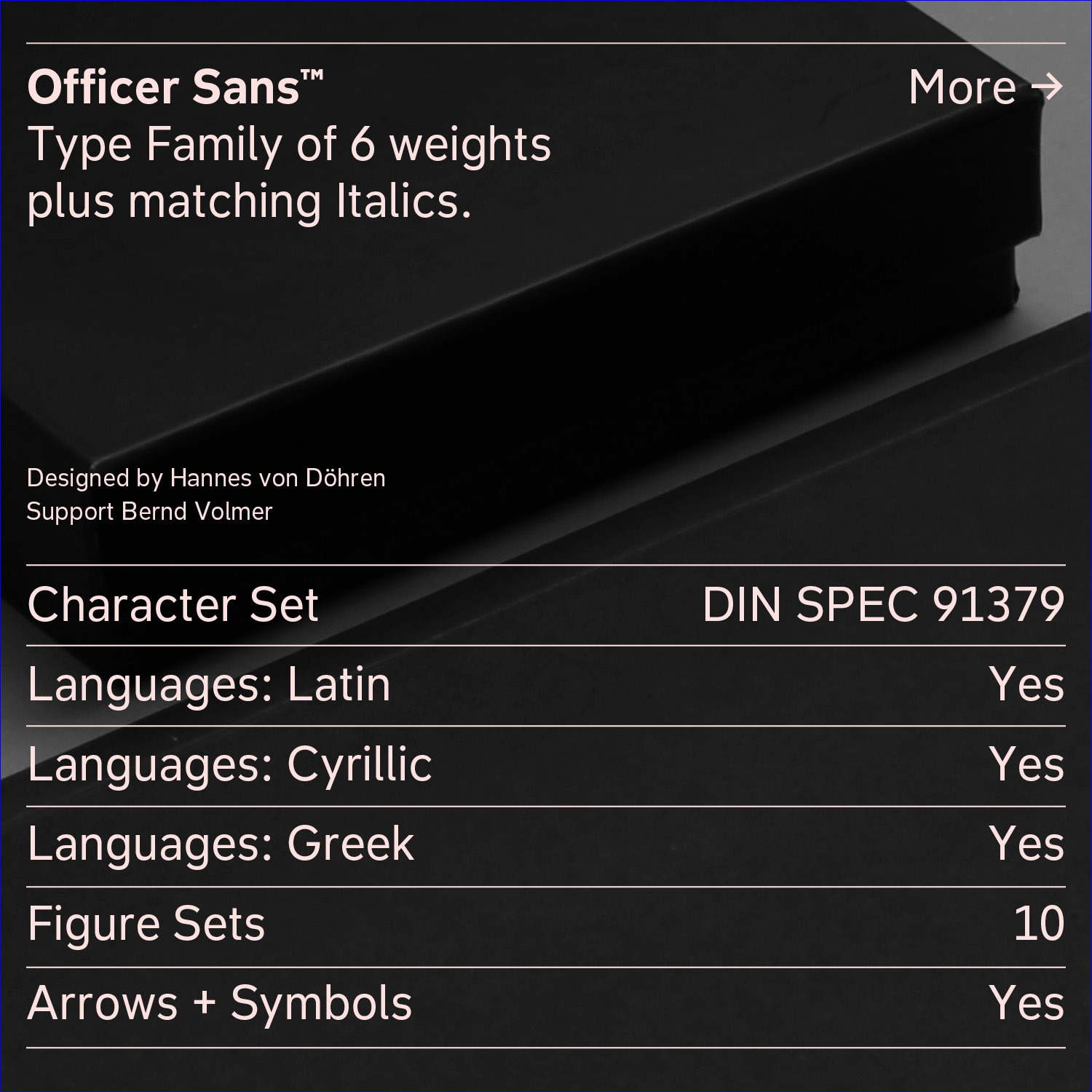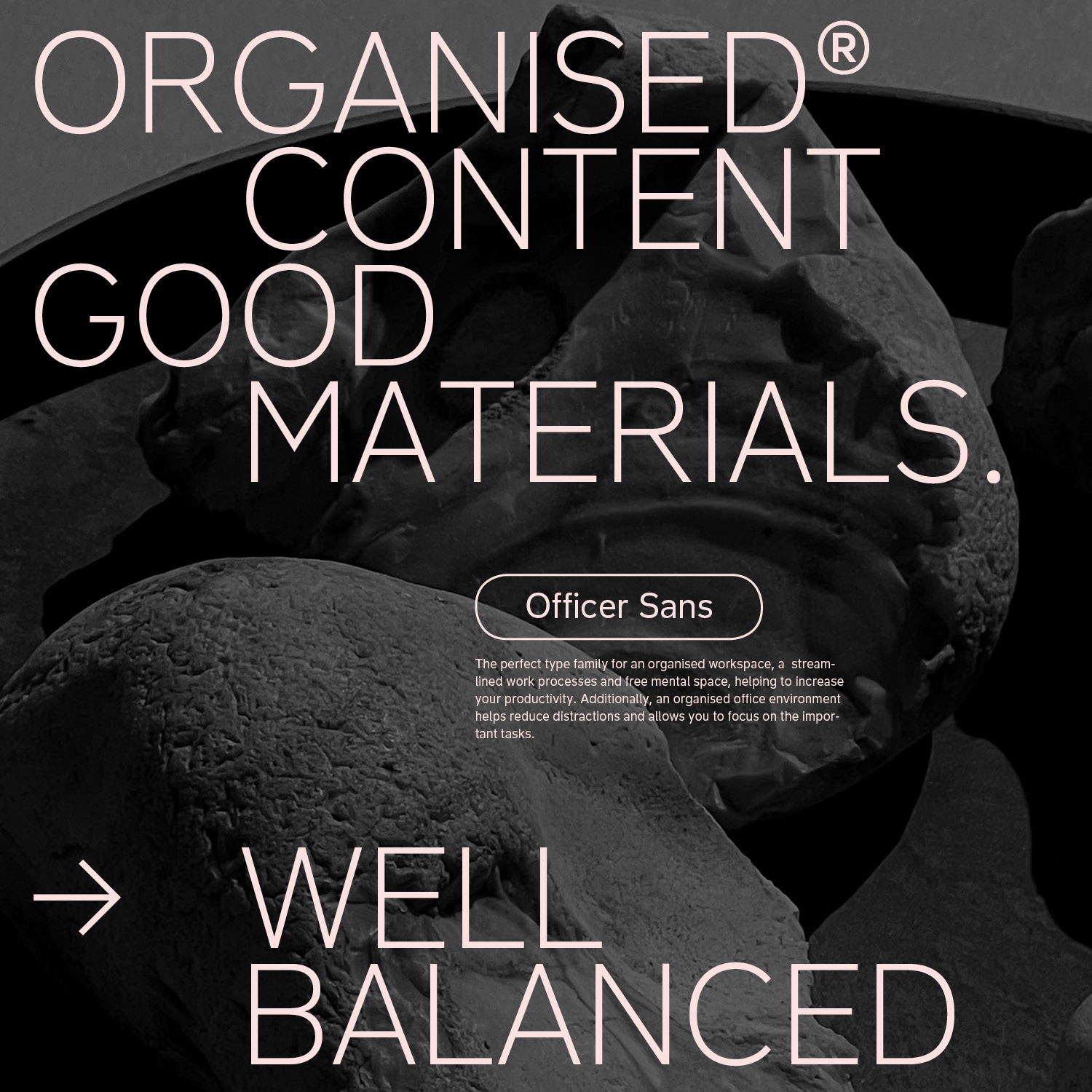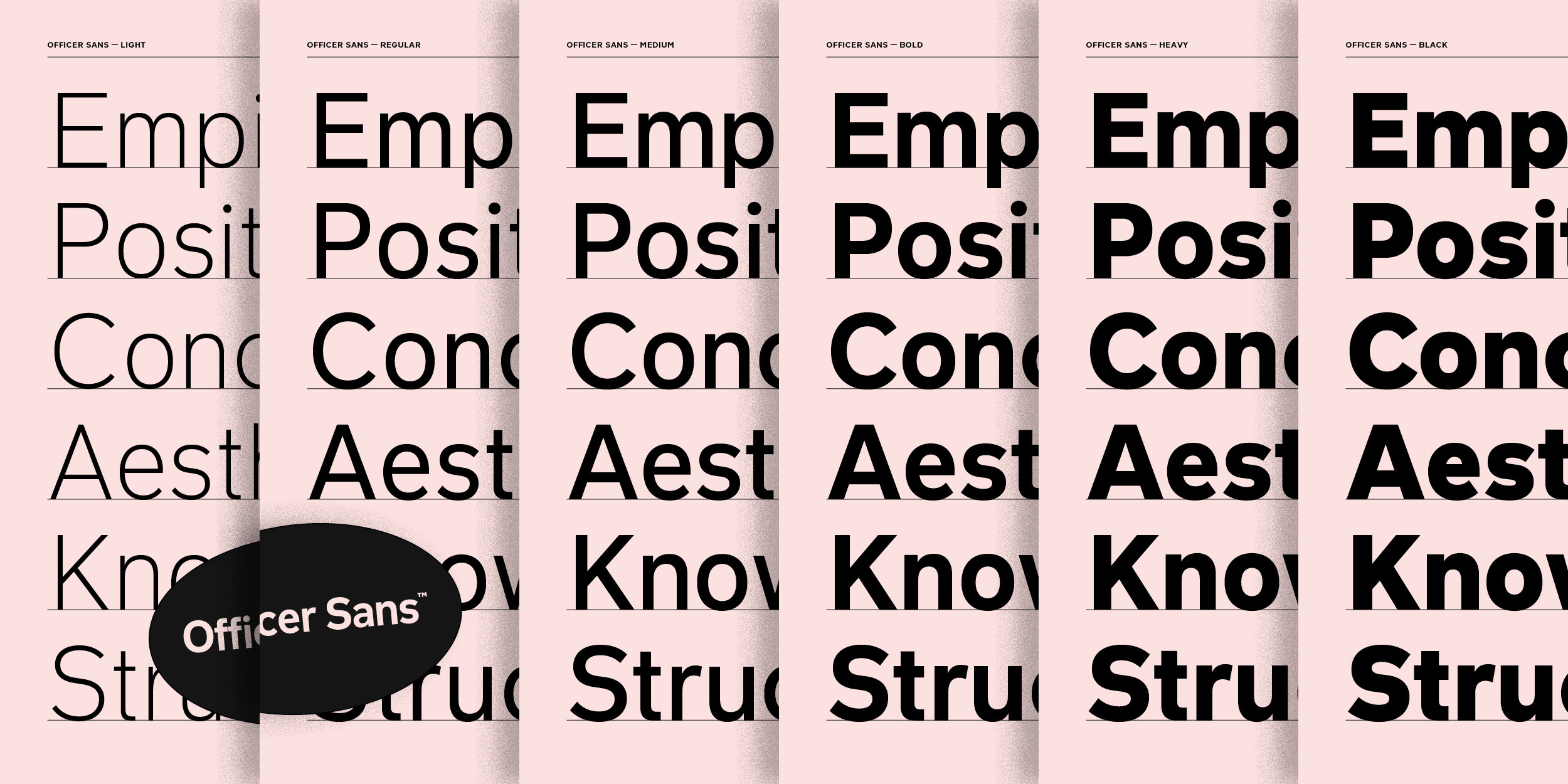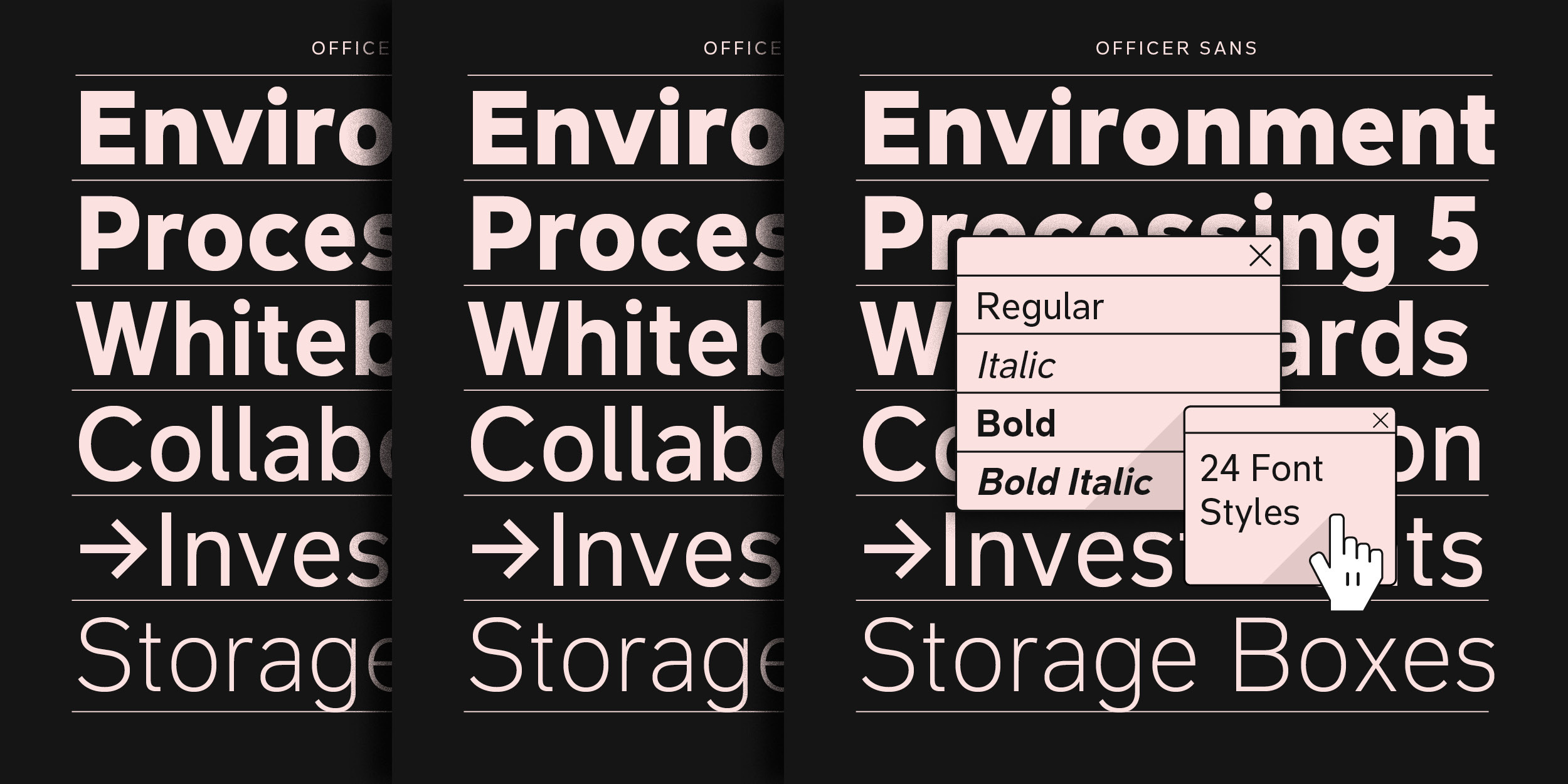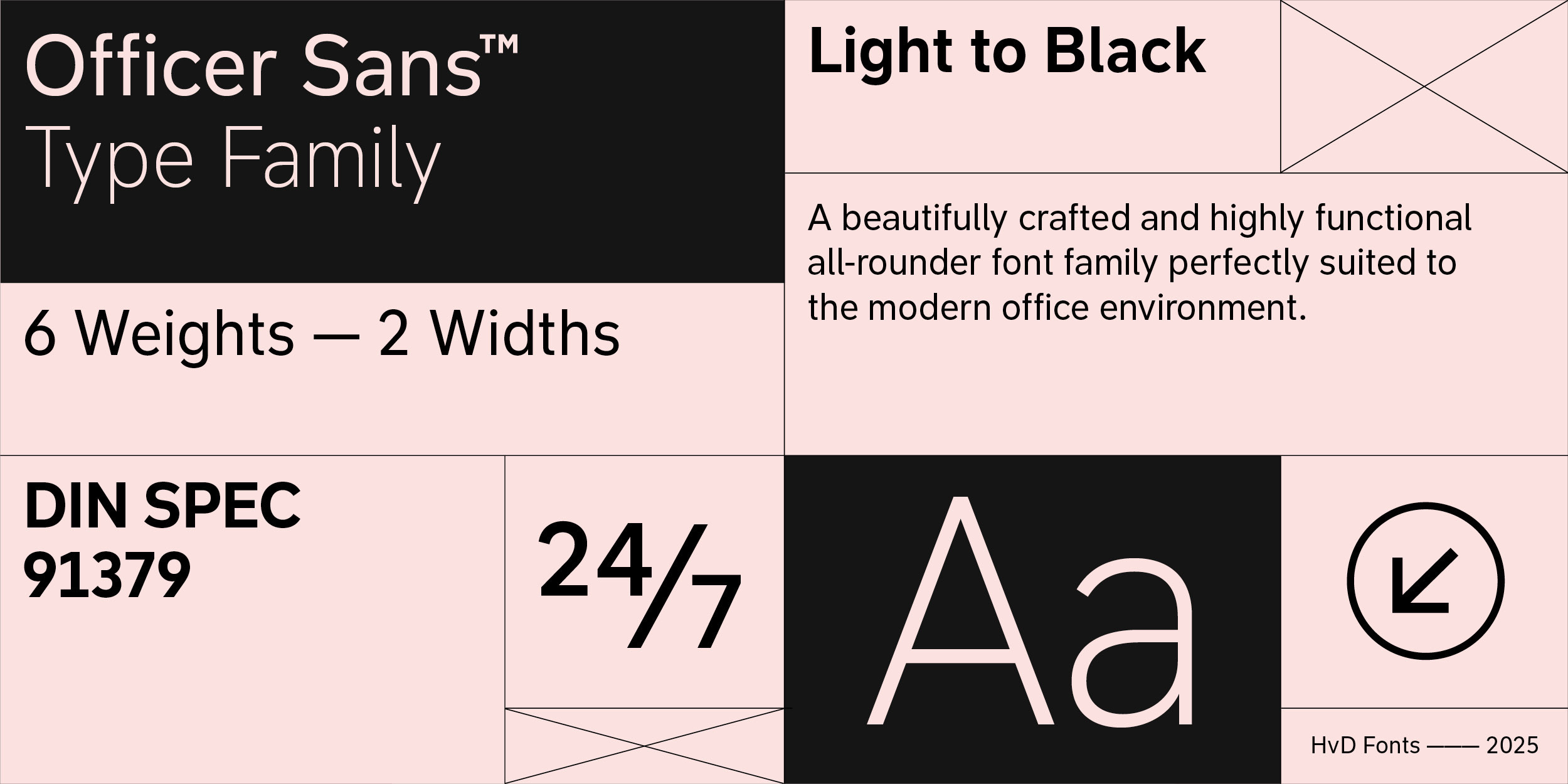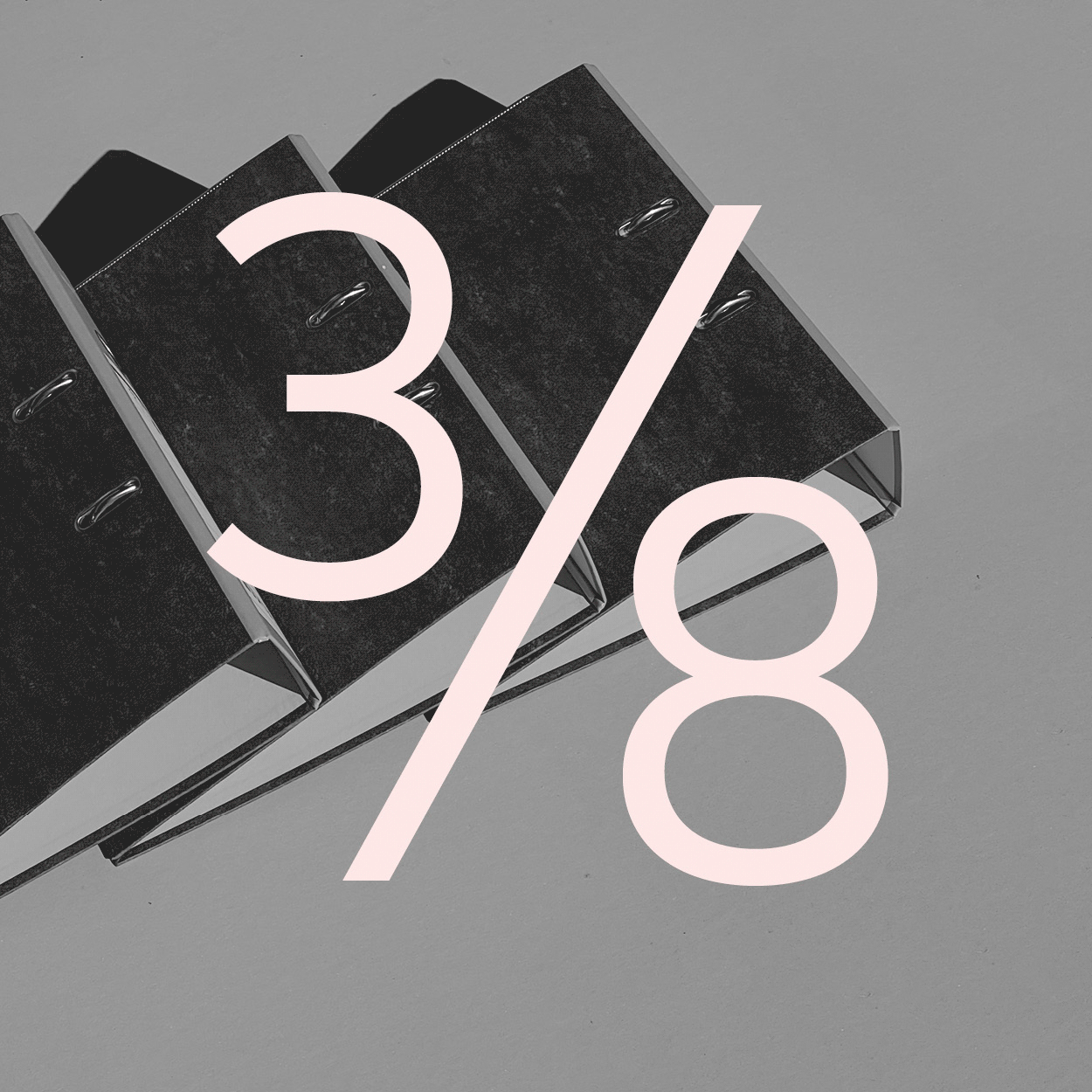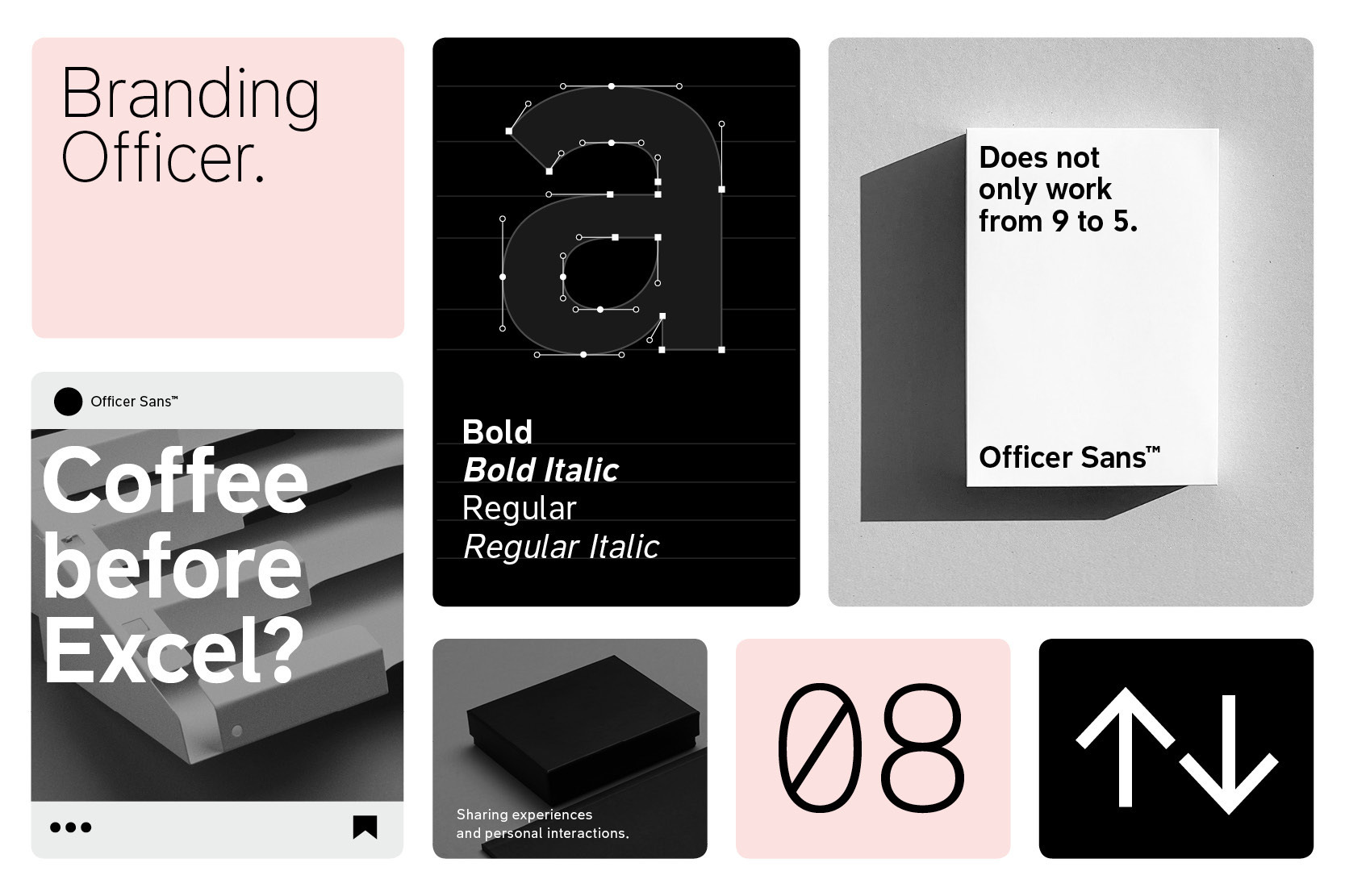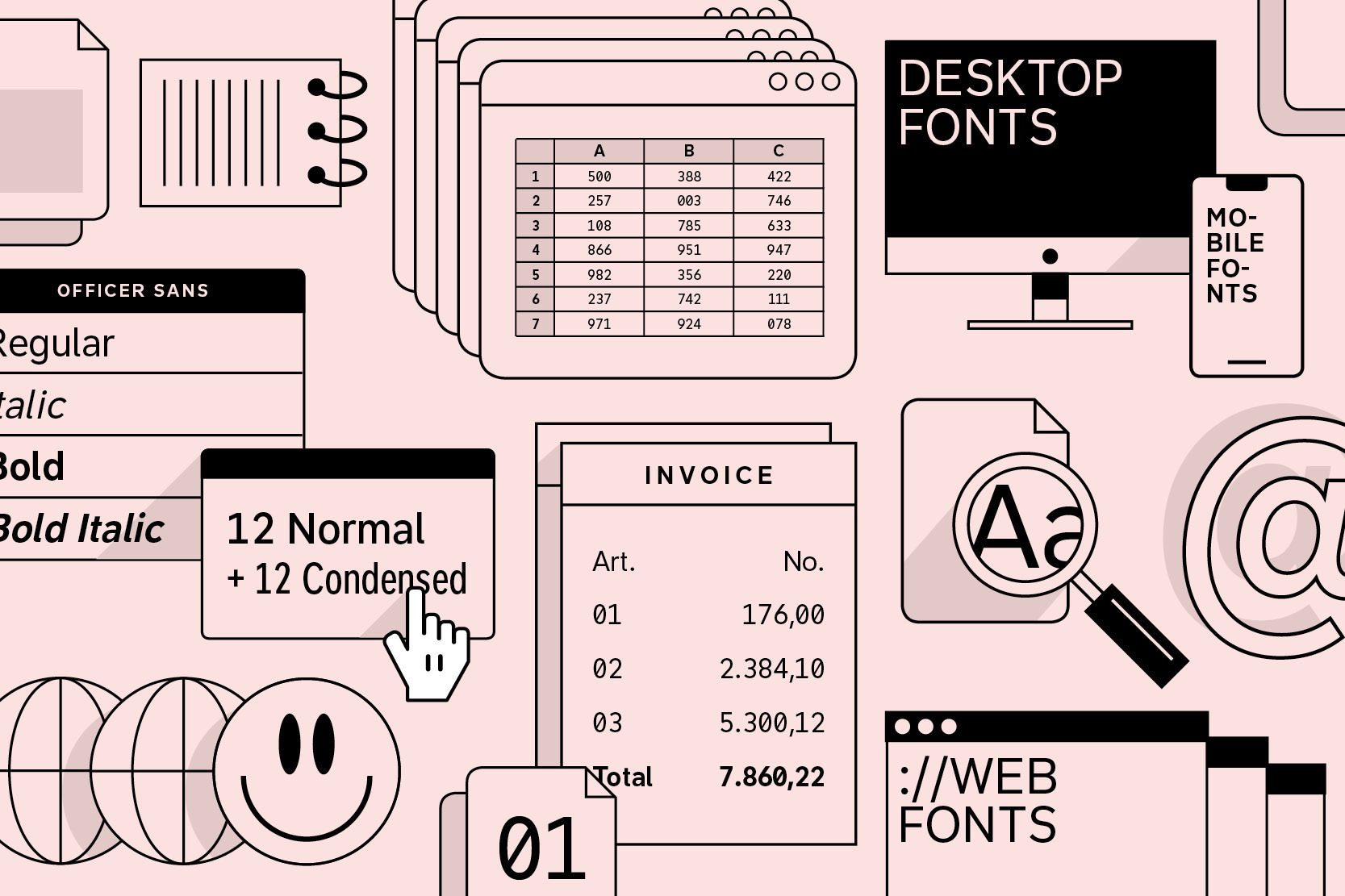
Type design is about more than crafting beautiful letters. In your day-to-day business, you don’t need flashy and fashionable — you need fonts that will always get the job done, a typographic workhorse. Officer Sans is a beautifully crafted and highly functional all-rounder font family perfectly suited to the modern office environment and designed to the most exacting typographic standards. It looks great too!
The best typefaces solve problems beautifully. Many years working across the world with large companies taught us that there is a lot of demand for a typeface solving specific challenges in the office and accounting environment. We collected all the essential and important requirements, ran the data, went back to the drawing board, and poured the results and our inspiration into a new font family that checked all the boxes — meet Officer Sans.
We designed Officer Sans to exacting standards so that the fonts work perfectly and seamlessly with modern office apps like MS Office, Excel, Pages, and Numbers. That means ensuring seamless functionality with features like Style Linking in MS Office, embedding the fonts within your documents, and optimizing or hinting all the fonts for optimal rendering on screen.
Officer Sans is remarkably versatile. Not only does it perform exceptionally in office environments, but excels at countless other typographic challenges, including remarkable performance on the web, in apps, and for server usage.
The design of Officer Sans was not driven by whims or uncompromising ideas about what might be cool, or by the latest design fads. We had high ambitions for Officer Sans: Not only did it have to look great, but more than anything it had to be about functionality. It had to be a typeface expansive and versatile enough to meet — and even exceed — all of the numerous and complex requirements demanded by the office environment. Officer Sans is a professionally crafted workhorse that excels in and out of the office — it’s just as happy in office apps as it is performing on the web or as a modern corporate typeface.
A superscript is a character that is set slightly above the line of type. It has the same weight and size like a subscript character. They are also used in formulas, mathematical expressions and text references, but can have many other uses as well.